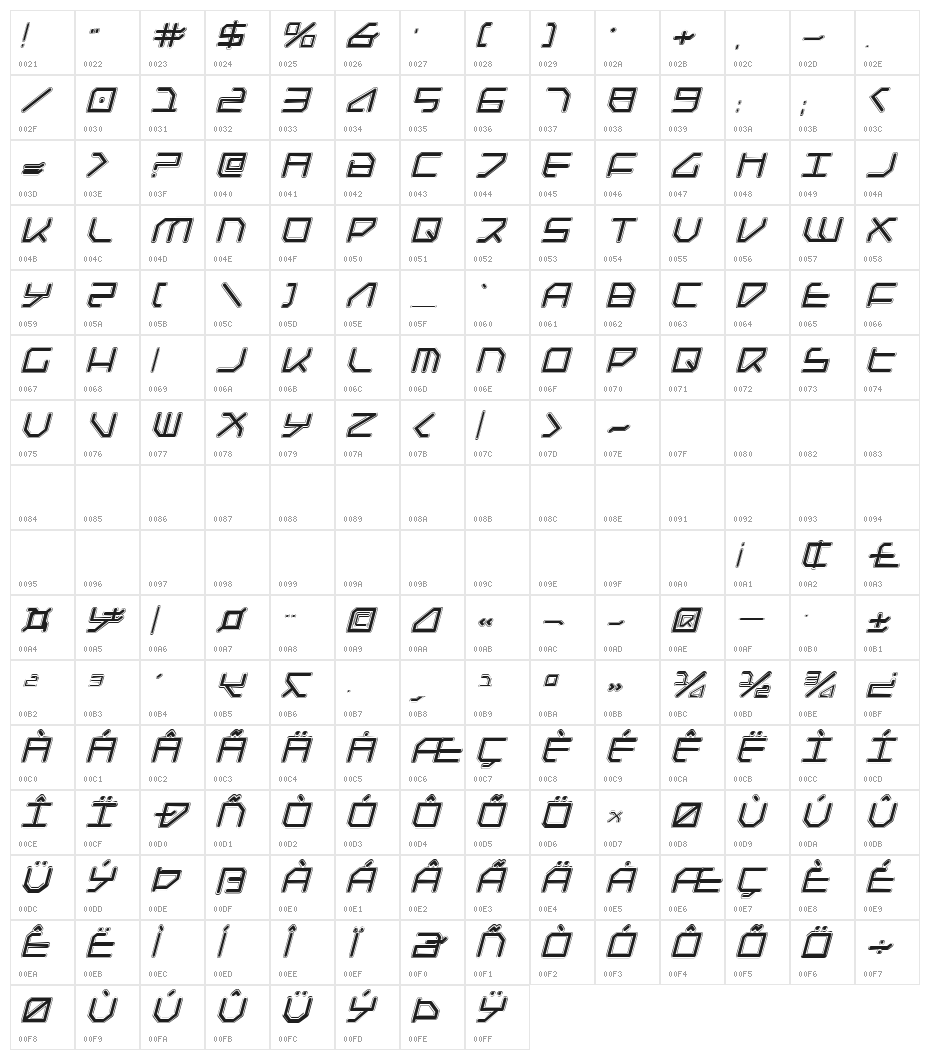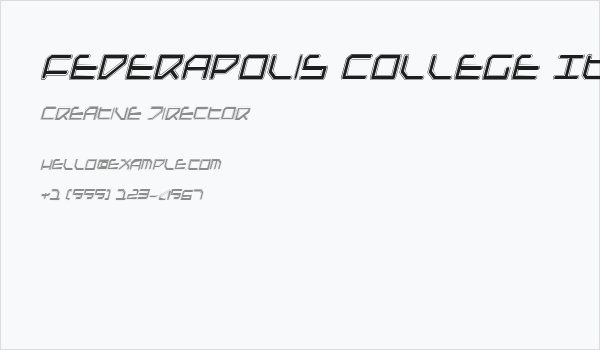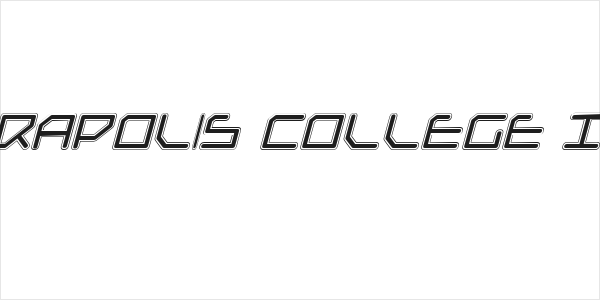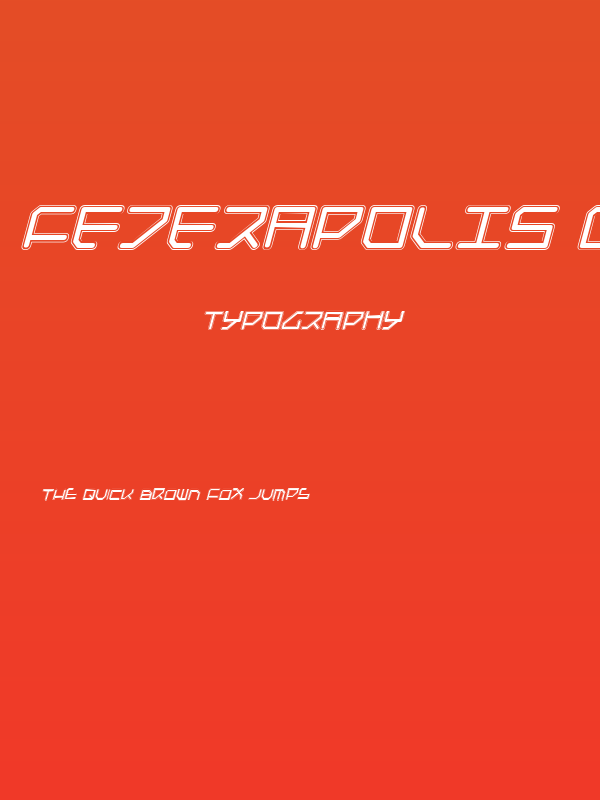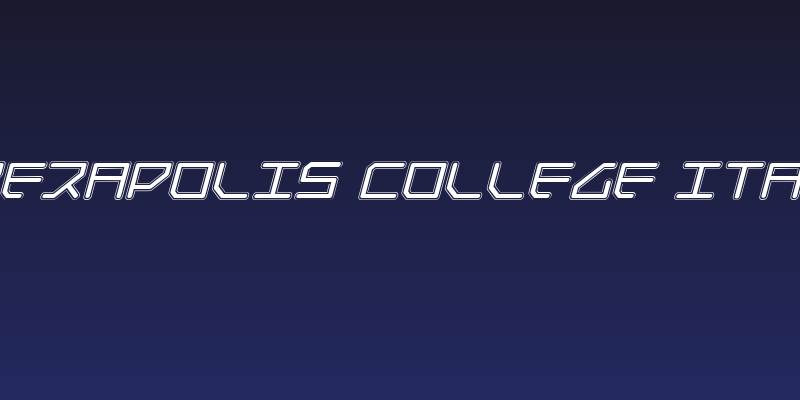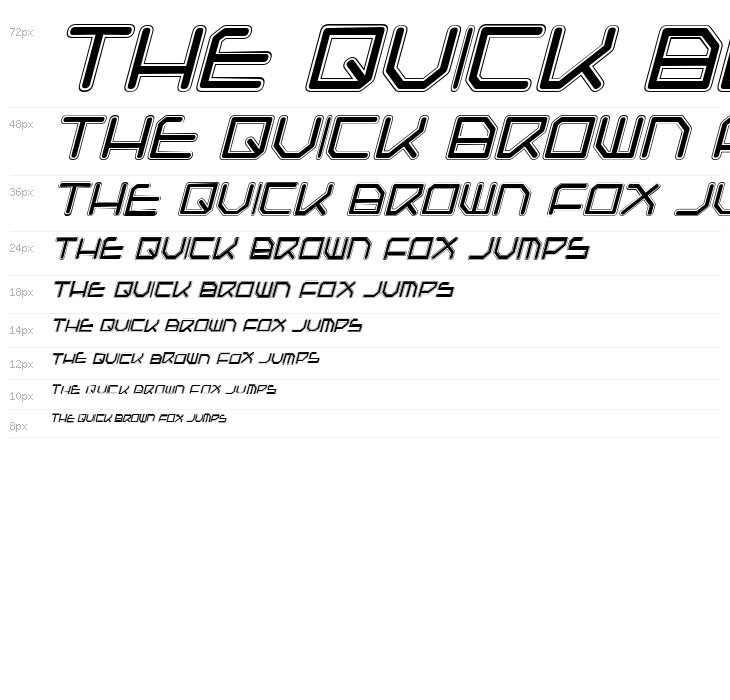
Federapolis College Italic Font
Federapolis College Italic Description
This font features a modern and dynamic design with a distinct italic slant, giving it a sense of motion and energy. The characters are outlined, creating a hollow effect that adds depth and dimension. Each letter is crafted with sharp angles and clean lines, contributing to a futuristic and tech-inspired aesthetic. The uppercase and lowercase letters maintain a consistent style, while the numerals and special characters seamlessly integrate into the overall design. This font's unique structure makes it stand out, suitable for projects that require a bold and innovative look.
| Proposed Projects | Ideal for tech branding, sports team logos, video game titles, and futuristic posters. |